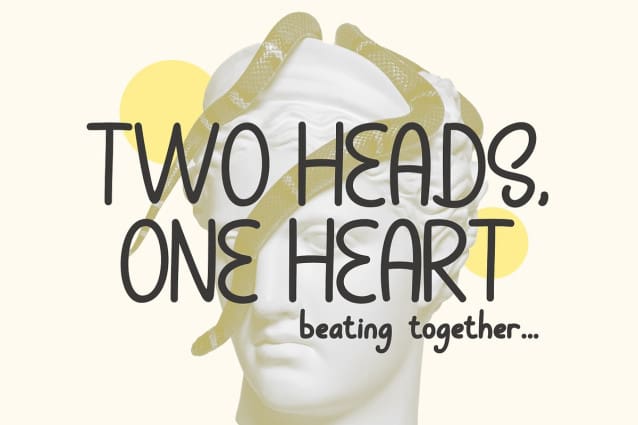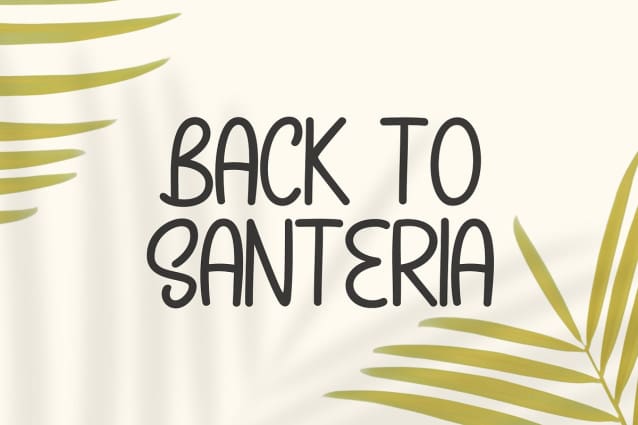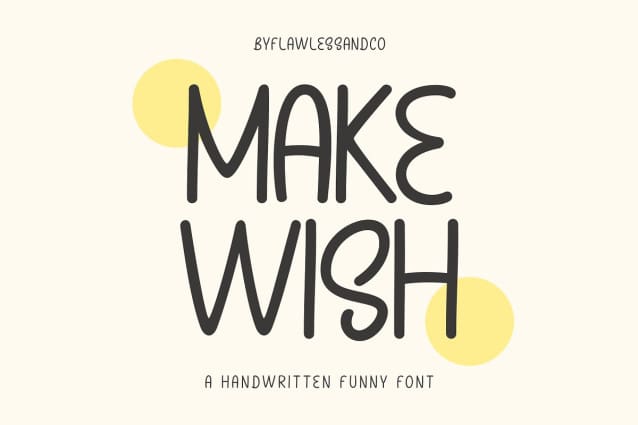
Make Wish Font
Introducing “Make Wish” – A Handwritten Funny Font. Unleash a burst of laughter and lightheartedness with “MakeWish,” a delightful handwritten font that adds a touch of humor and playfulness to your designs. With its whimsical strokes and comical characters, MakeWish is the perfect choice for projects that need a dose of funny charm.